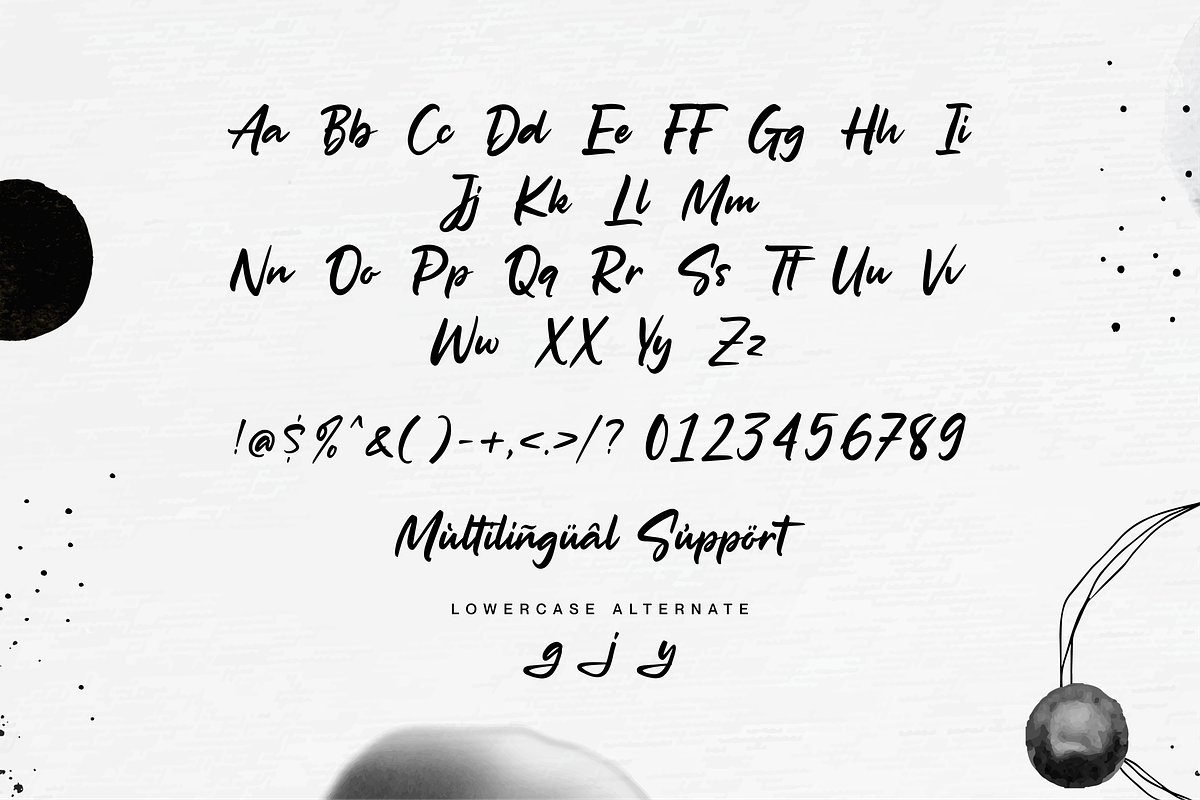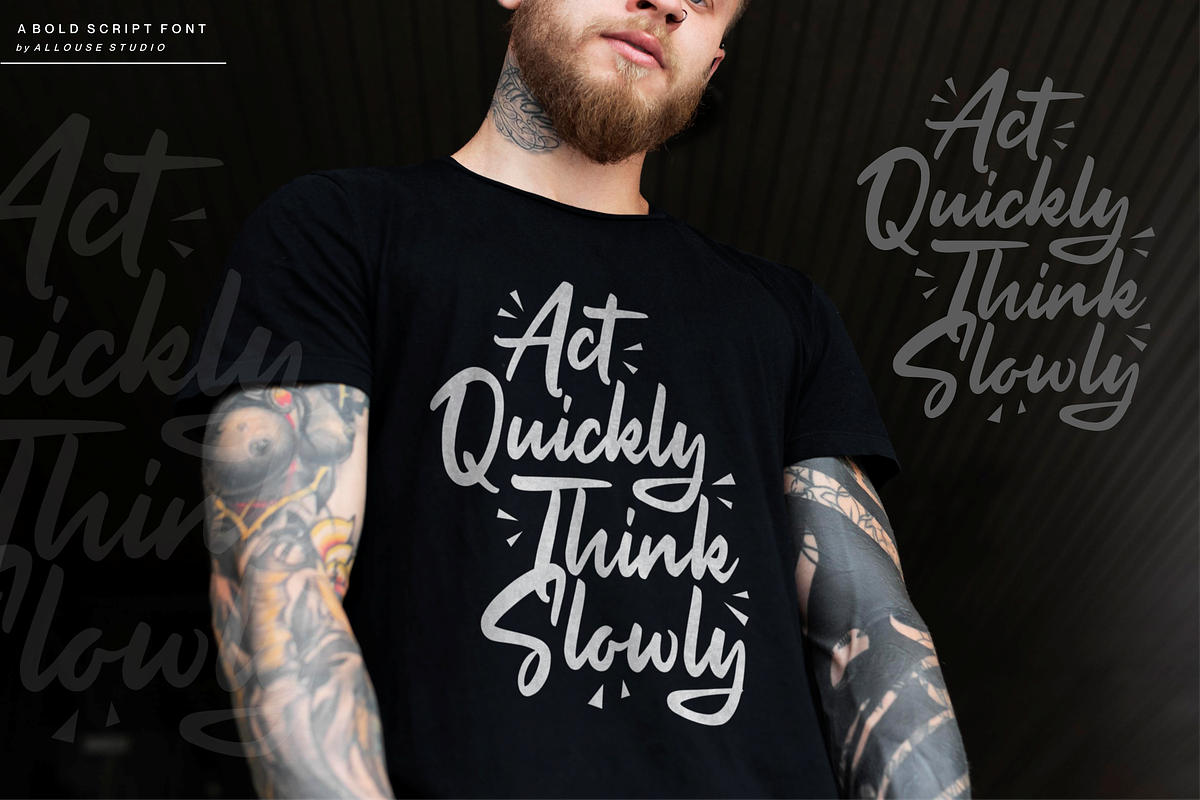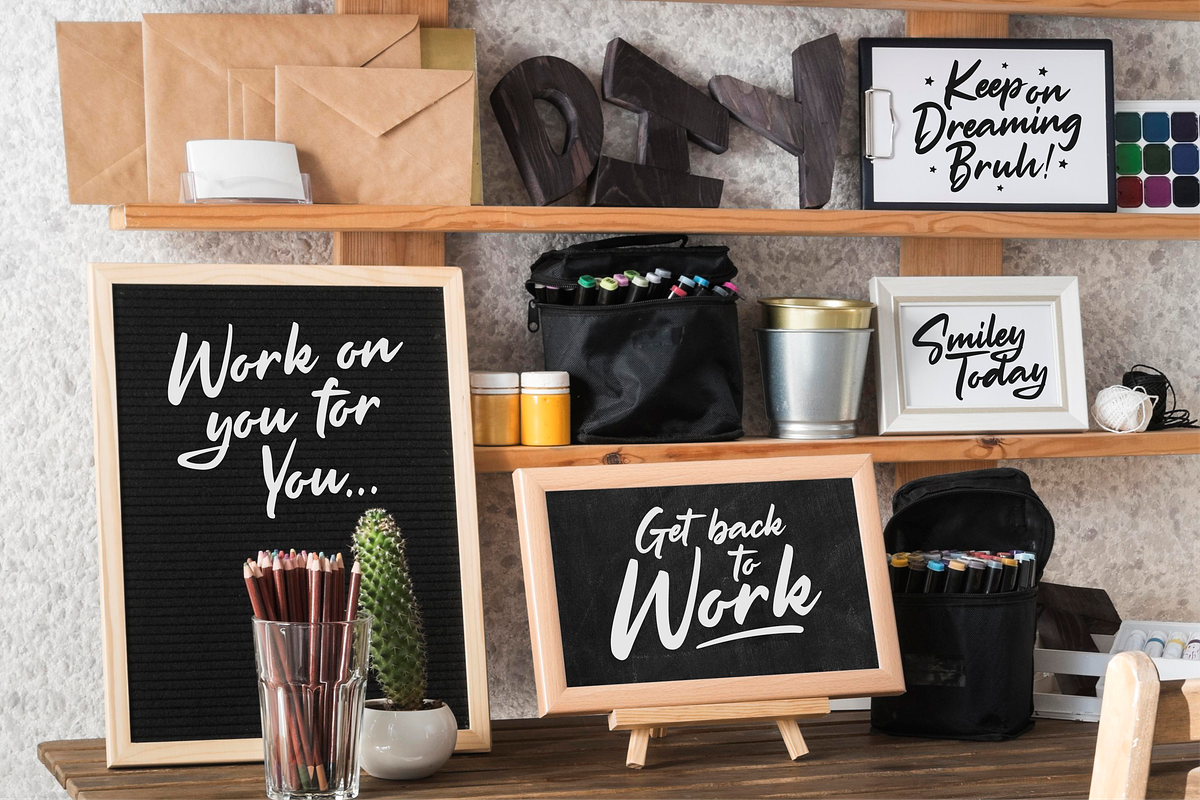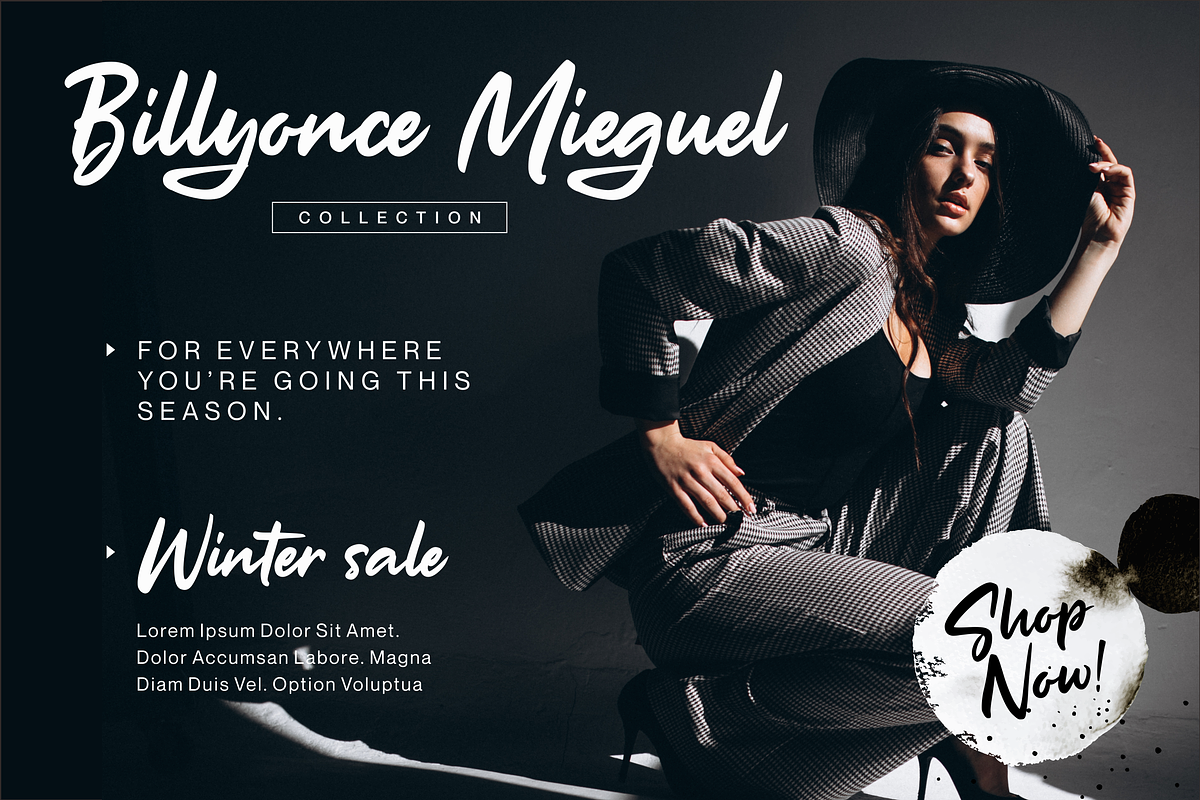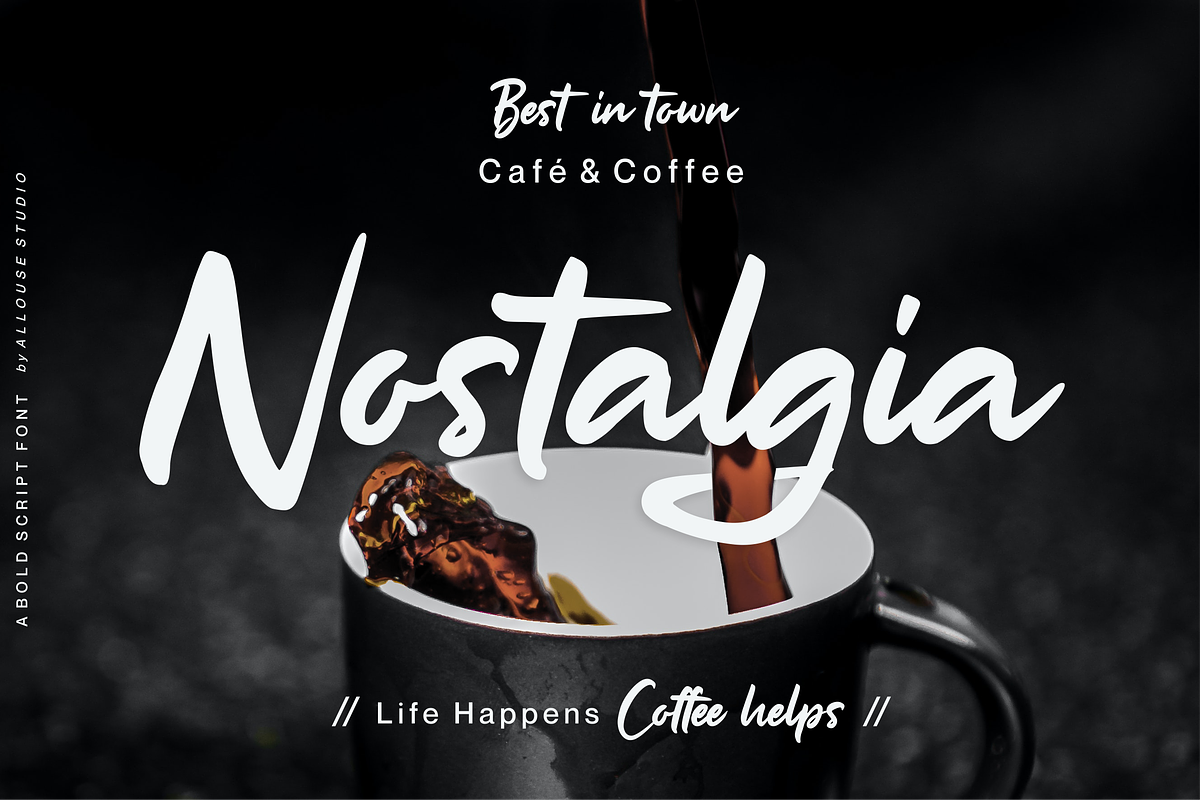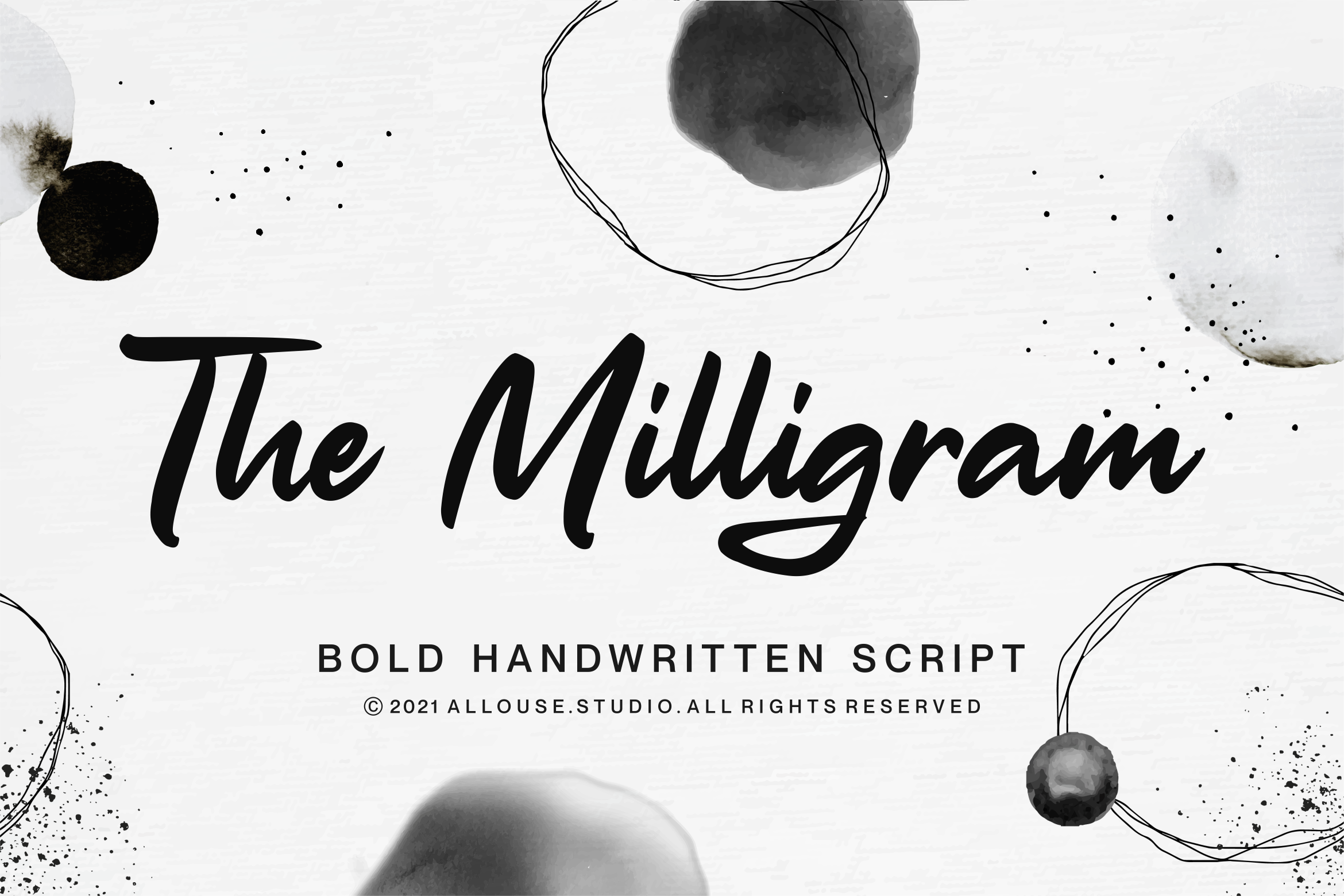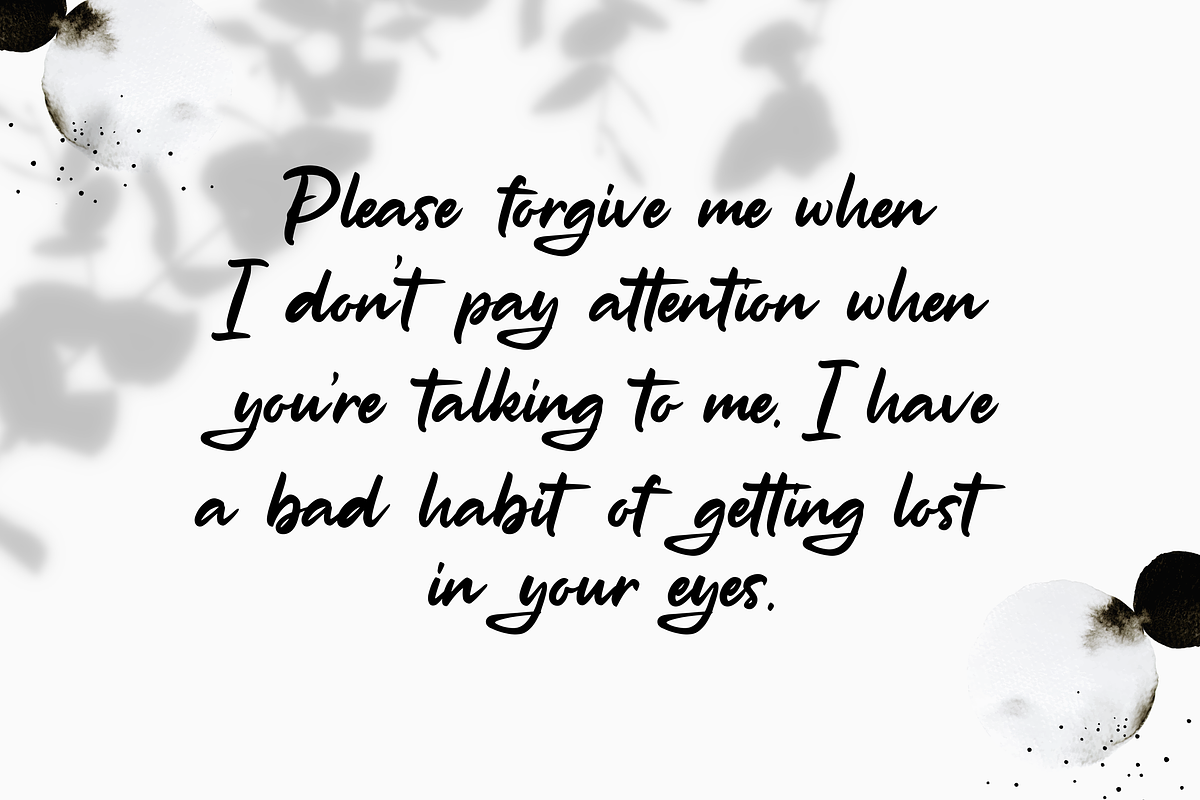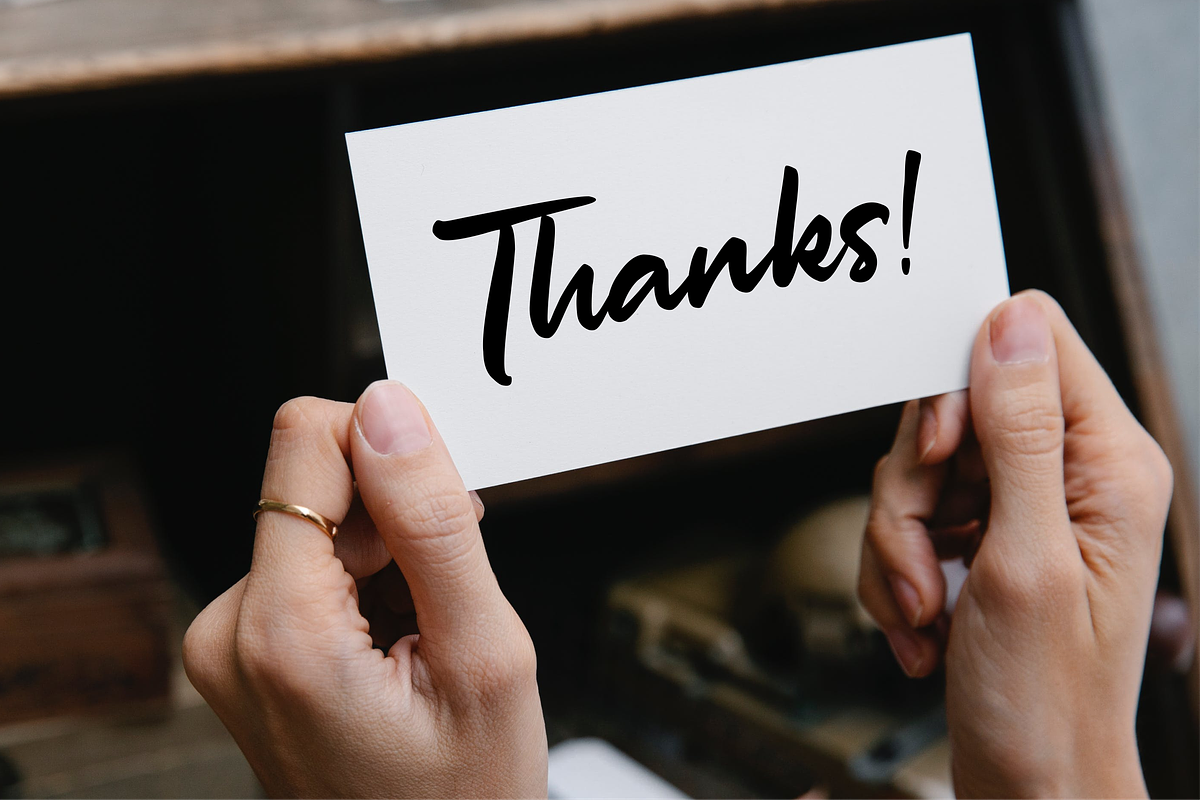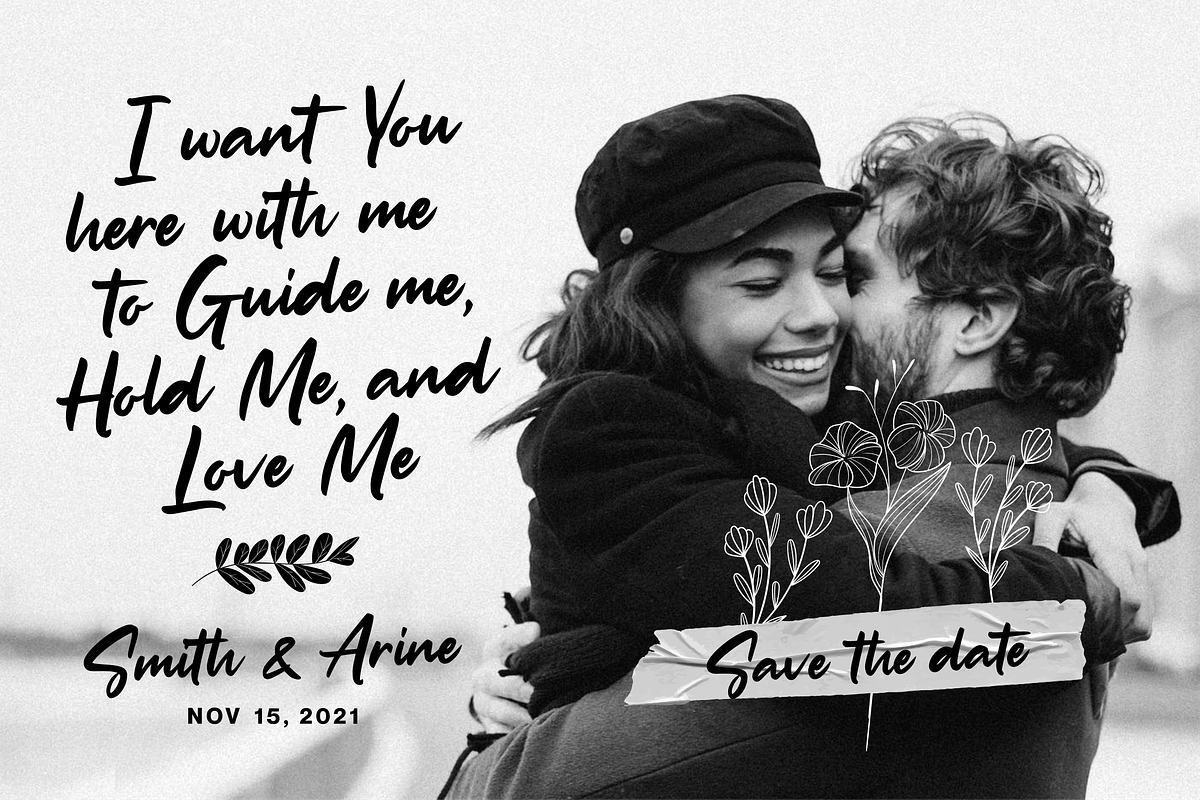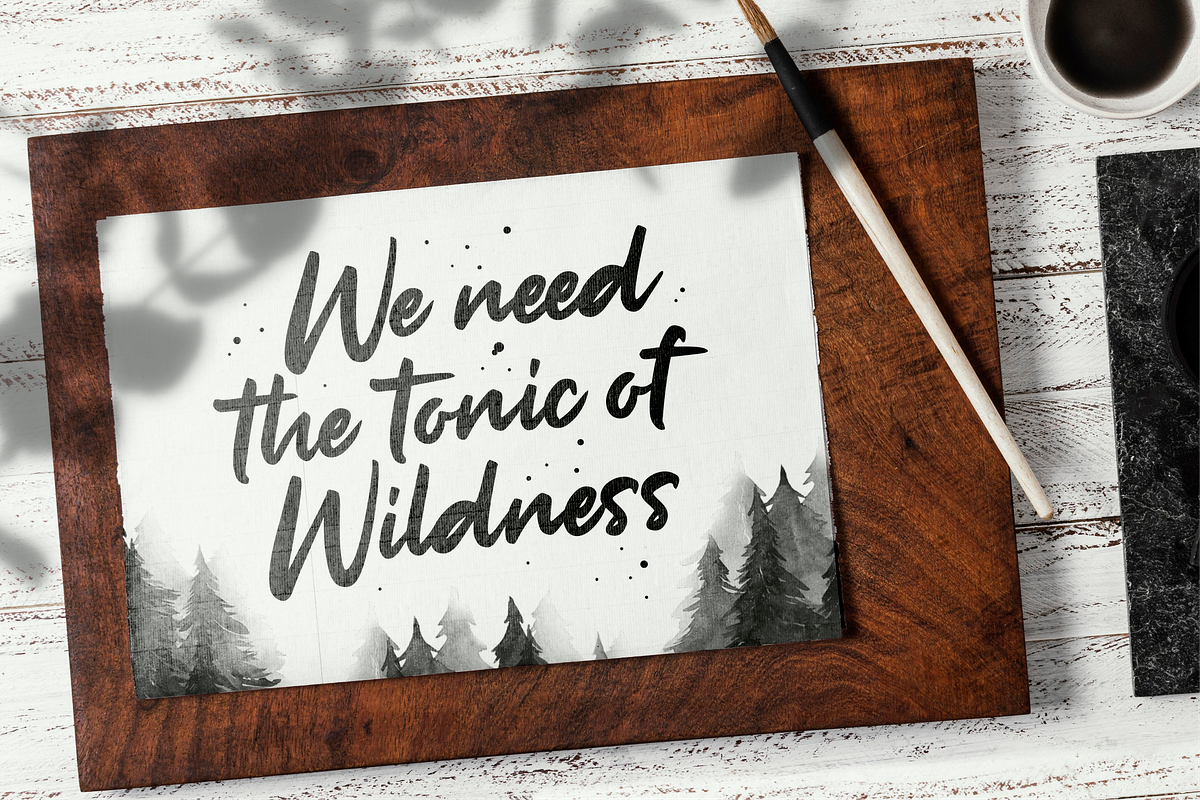
The Milligram Bold Handwritten Font
Proudly Presenting, The Milligram a Bold Handwritten Script.
The Milligram is perfect for any titles, logo, product packaging, branding project, megazine, social media, wedding, or just used to express words above the background.
The Milligram also come with Multi-Lingual Support.